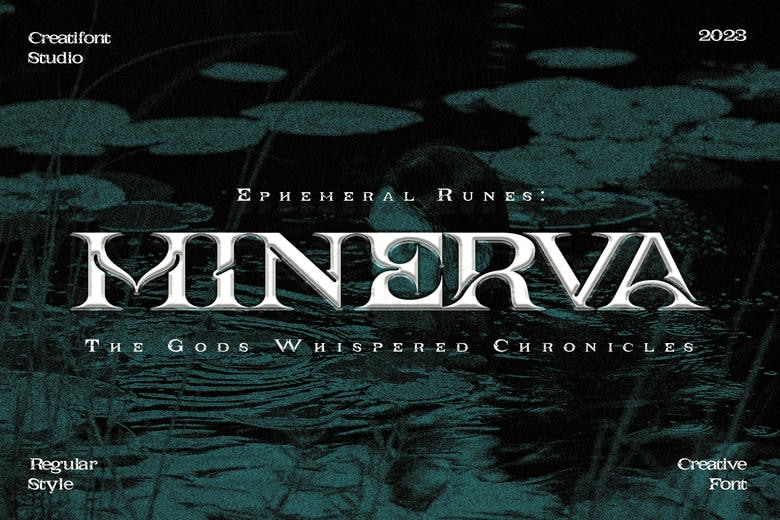
Minerva Serif Font
Minerva is a serif font known for its graceful and soft look, making it a great choice for elegant, refined designs. Its smooth, flowing curves give it a sophisticated feel. Every detail in its letterforms is carefully designed, adding an artistic touch that works well for projects needing a bit of extra finesse.
Minerva is more than just a font. It combines beauty and precision, offering strong character and lasting elegance. Using Minerva can help your designs stand out and leave a lasting impression.